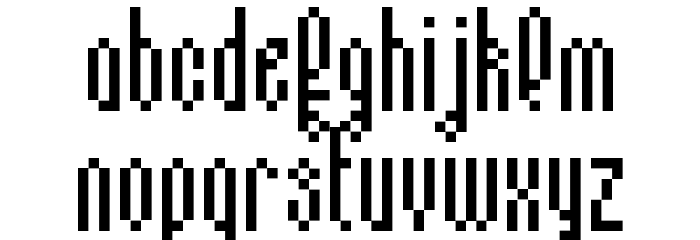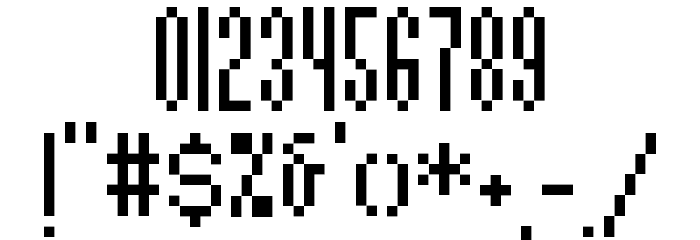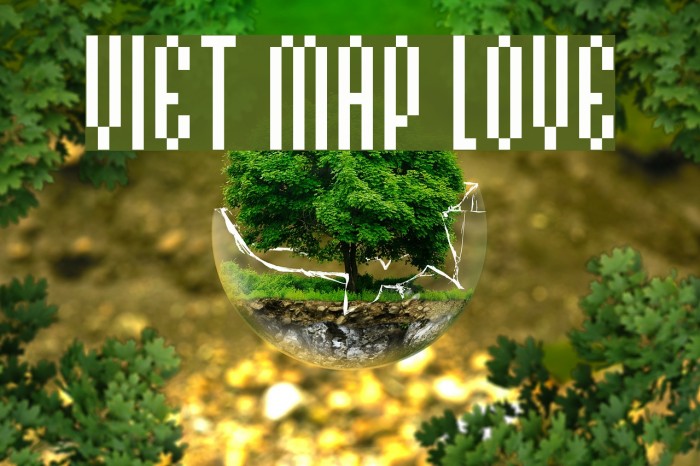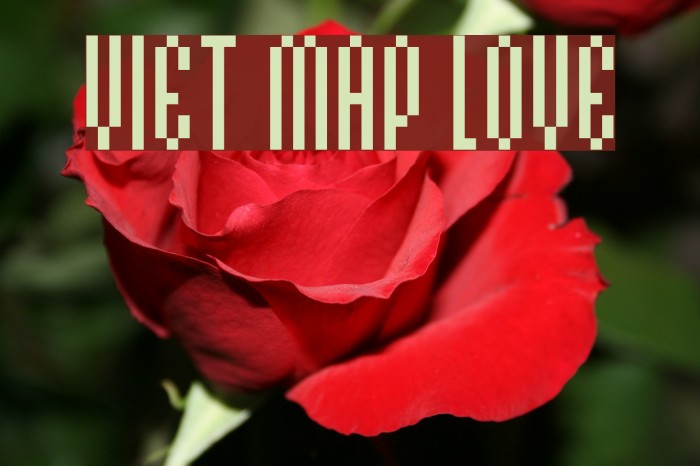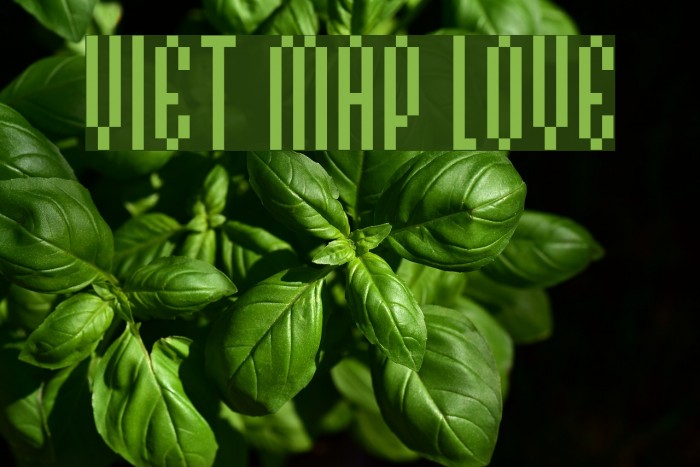
VIET MAP LOVE Font
This font features a pixelated, retro style reminiscent of early digital displays and video games. The characters are composed of small, uniform squares, giving it a blocky and geometric appearance. The uppercase and lowercase letters maintain a consistent height, with minimal differentiation between them, contributing to a monospaced feel. Numbers and special characters follow the same design principles, ensuring uniformity across the set. The overall aesthetic is distinctly digital and nostalgic, making it suitable for projects that aim to evoke a sense of vintage technology or gaming culture.
A pixelated, retro font with a digital, blocky style.
- Proposed Projects: Ideal for retro video game designs, digital art projects, tech-themed posters, and nostalgic branding.
- Overall Style: Vintage
- Use Case: Logos, Headlines, Digital Art